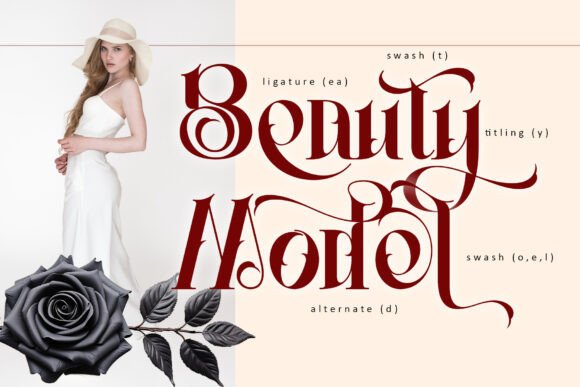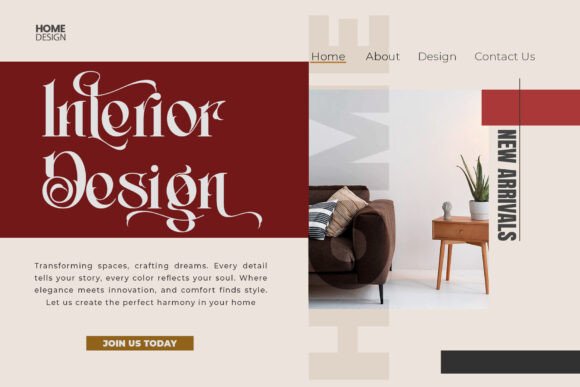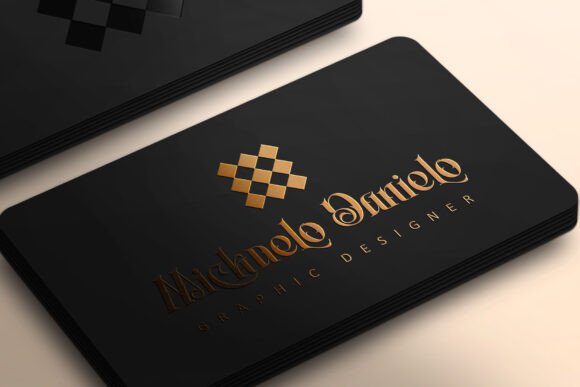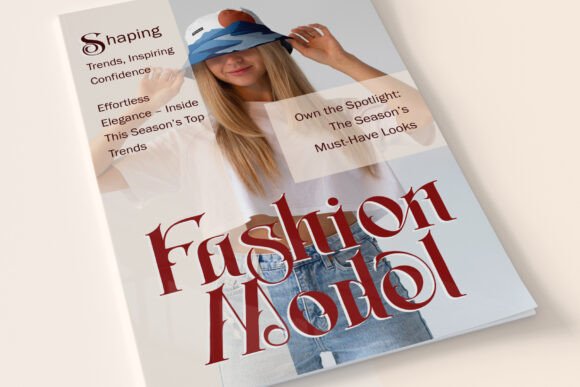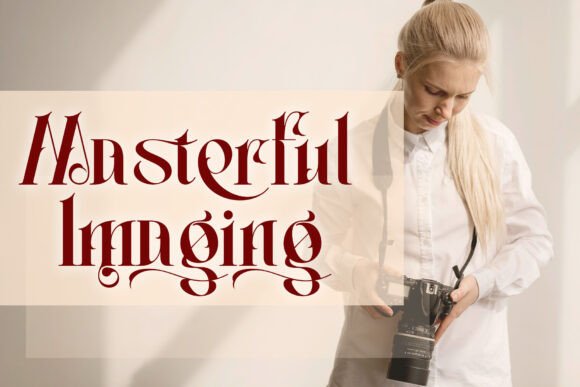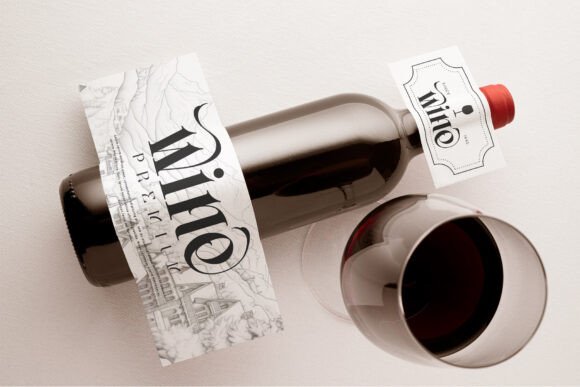
Unveil the Beauty of Darkbloom: A Refined Serif Font for Elegant Designs
In the world of typography, a font can make or break a design. For those seeking to add a touch of sophistication and elegance to their projects, look no further than Darkbloom, a stunning serif font that embodies the perfect blend of refinement and mystique. With its delicate lines, intricate details, and enchanting edge, Darkbloom is poised to elevate your designs to new heights of luxury and allure.
The Essence of Darkbloom: A Serif Font Like No Other
Darkbloom is more than just a font – it’s an experience. Its refined serif letterforms exude a sense of classic sophistication, while its distinctive details inject a hint of mystery and allure. Whether you’re working on luxurious packaging, high-end branding, or any project that demands attention to detail, Darkbloom is the perfect choice. Its timeless appeal ensures that your creations will stand out from the crowd, captivating your audience with an air of elegance and refinement.
Unlock Endless Creative Possibilities with PUA Encoding
One of the standout features of Darkbloom is its PUA (Private Use Area) encoding, which unlocks a treasure trove of creative possibilities. With PUA encoding, you’ll gain effortless access to a wide variety of unique glyphs and swashes, allowing you to experiment with different styles and effects. This means you can push the boundaries of your designs, adding intricate flourishes and personal touches that make your creations truly one-of-a-kind.
Darkbloom is a font that speaks to designers and crafters who appreciate the art of typography. Its versatility makes it an excellent choice for a range of applications, from:
- Luxurious packaging: Add a touch of high-end sophistication to your product packaging with Darkbloom’s elegant letterforms.
- High-end branding: Elevate your brand’s visual identity with a font that exudes refinement and poise.
- Stationery and invitations: Create bespoke stationery and invitations that showcase your attention to detail and sense of style.
- Digital designs: Use Darkbloom to add a touch of elegance to your website, social media graphics, or digital marketing materials.
Bring Your Designs to Life with Darkbloom
So why settle for ordinary fonts when you can have a font that truly makes your designs shine? With Darkbloom, you’ll be able to:
- Create visually stunning designs that capture attention and inspire your audience.
- Add a touch of timeless elegance to your projects, ensuring they stand the test of time.
- Experiment with different styles and effects using the font’s extensive range of glyphs and swashes.
In conclusion, Darkbloom is a refined serif font that offers a unique blend of sophistication, elegance, and enchantment. With its PUA encoding and extensive range of glyphs and swashes, this font is perfect for designers and crafters seeking to elevate their designs to new heights of luxury and allure. Whether you’re working on luxurious packaging, high-end branding, or any project that demands attention to detail, Darkbloom is the perfect choice. So why wait? Unveil the beauty of Darkbloom today and bring your designs to life with unparalleled elegance and charm.